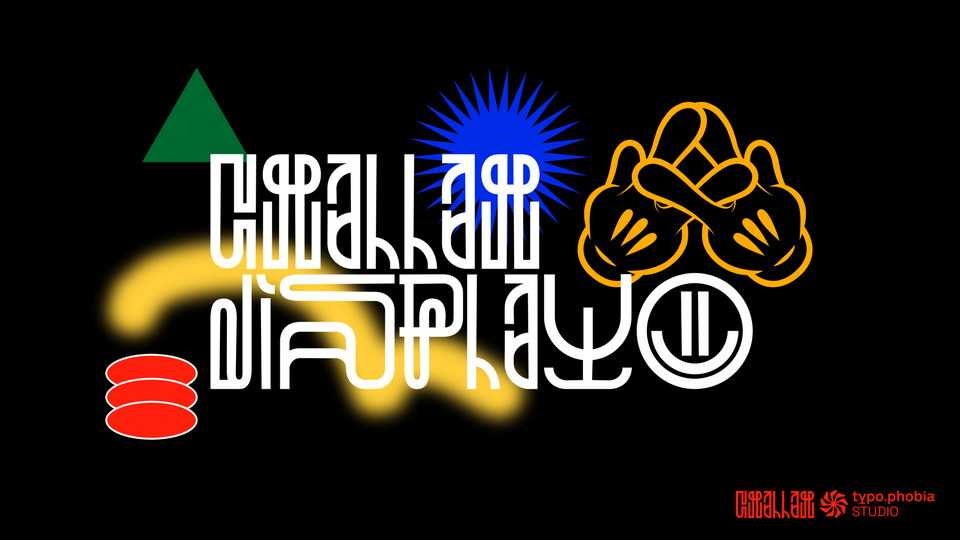
Download Challah font, a unique display typeface inspired by the Brazilian graffiti trend. Letters are very diverse, but because they contain several shapes characteristic for each other – they retain a certain coherence.
Designer: Konrad “Koxu” Łukasiak